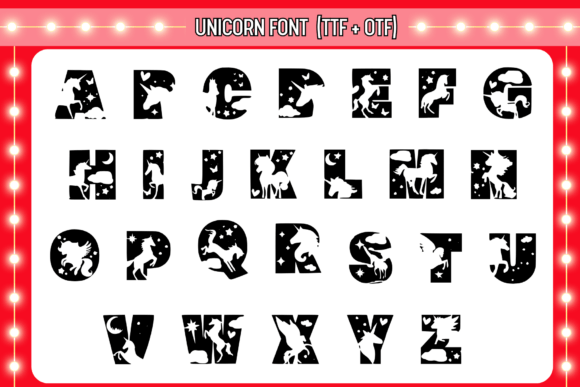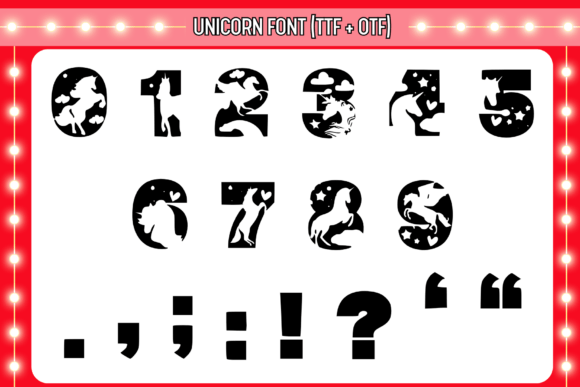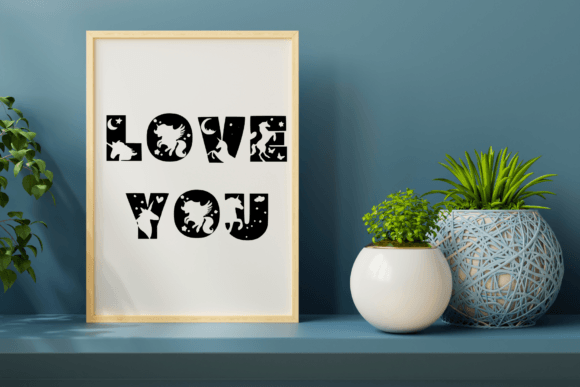
Unicorn Font
Add a touch of magic to your designs with the enchanting Unicorn Font! Each bold letter is filled with whimsical unicorn silhouettes, sparkling stars, and dreamy celestial details, making it perfect for kids’ projects, party invitations, fantasy-themed graphics, and more. Its playful and imaginative style will transport anyone into a magical world of rainbows and stardust.